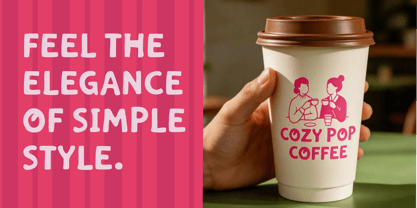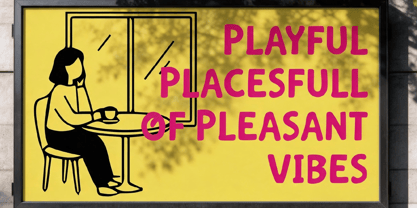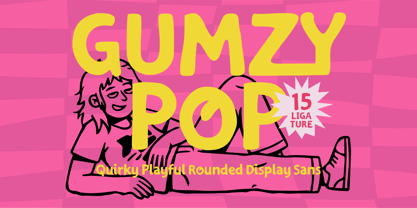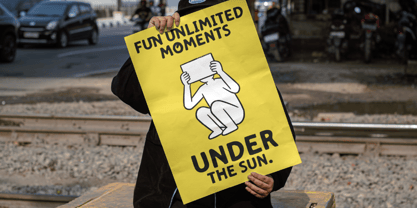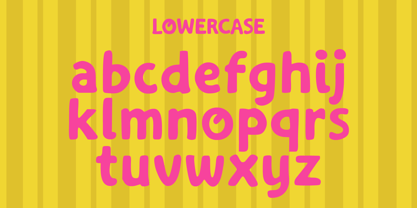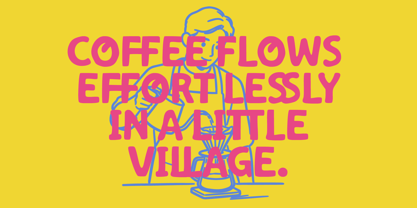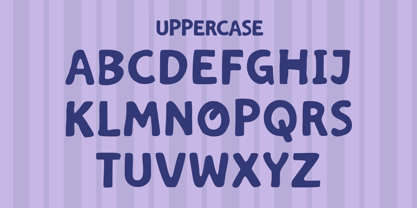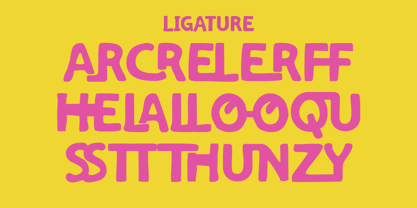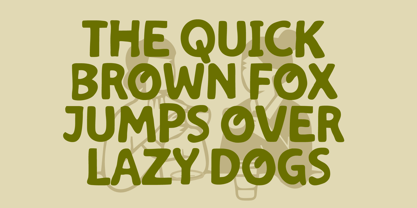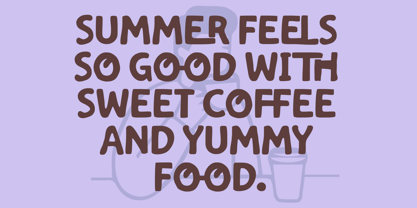
Gumzy Pop
Gumzy Pop is a quirky rounded display font that radiates playful energy and a cheerful personality. With its soft curves, chunky strokes, and whimsical letterforms, this fun sans serif typeface offers a charming handmade feel that captures attention. The unique ligatures and bouncy shapes make Gumzy Pop an ideal choice for various applications, including branding projects, café menus, children's products, packaging, posters, social media graphics, merchandise, stickers, and retro-inspired designs. Its bold yet friendly appearance fosters a warm and approachable vibe while ensuring strong readability across both print and digital formats. Gumzy Pop is perfect for creatives seeking to infuse joyful character and expressive style into their typography.